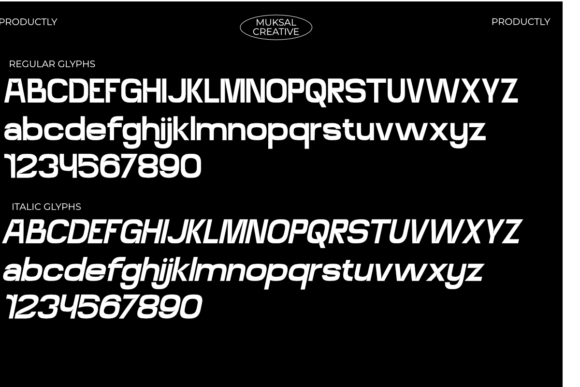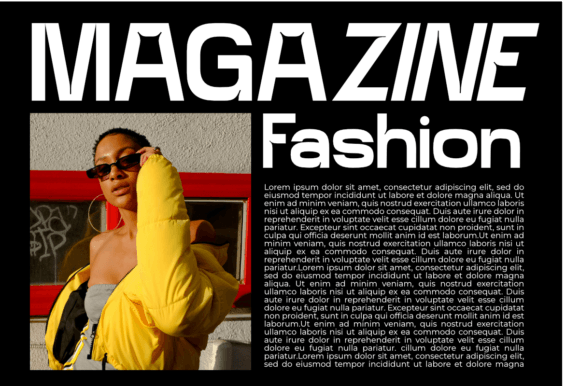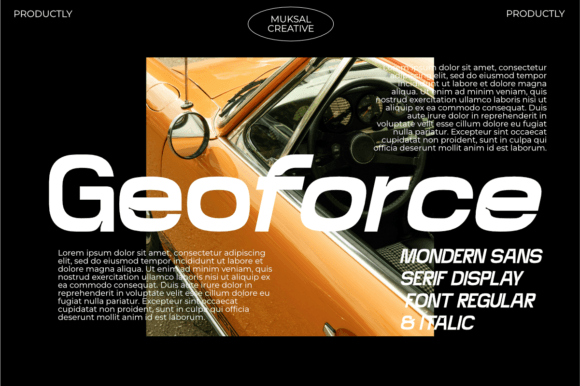
Geoforce Font
Designer: Muksal Creative
GeoForce Font is a font designed with strong and modern characteristics, combining bold geometric elements with a thickness that conveys a sense of power and dynamism. This font is perfect for projects that require a futuristic and daring look, such as tech branding, posters, and graphic designs that need a strong visual impact. With its structured and precise shapes, GeoForce exudes strength and stability, making it ideal for delivering messages in an efficient and eye-catching manner.